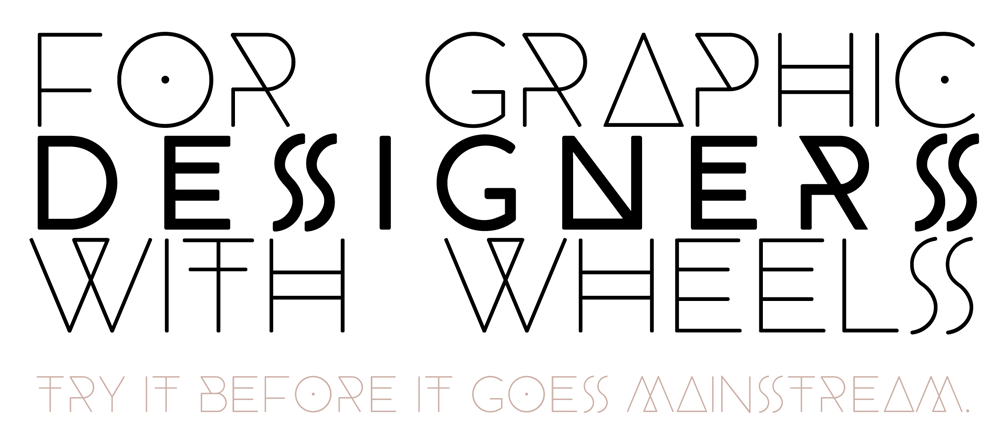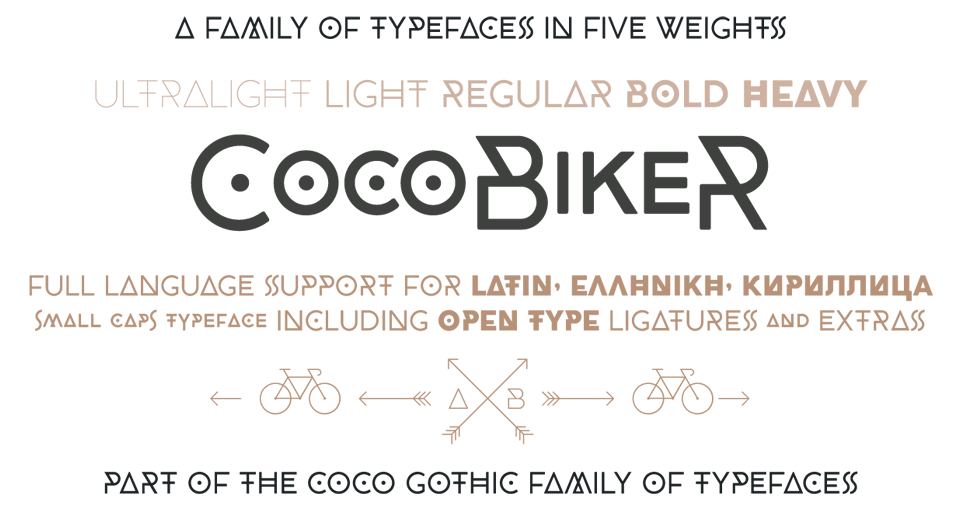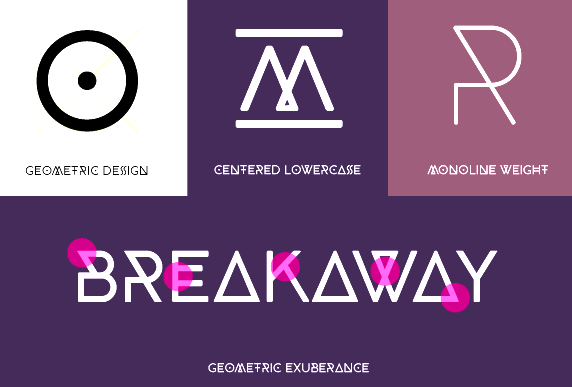
The best free typefaces of 2015: Luc's selection
This is my own selection of the best free typefaces published in 2015, grouped by category.
Text typefaces:
• Clara (Séamas Ó Brógáin). This typeface family also covers Greek and Cyrillic.
• Inknut Antiqua (Claus Eggers-Sørensen). An angular text typeface that will survive earthquakes and tsunamis.
• Caslon OS (Alfredo Marco Pradil). A revival typeface for those who can't afford Adobe Caslon.
Sans typefaces:
Type systems:
Art deco typefaces:
Hipster typefaces:
Script typefaces:
Sketched, Layered or Poster typefaces:
• Pelmeshka (Cyril Mikhailov). A handcrafted fat didone for Latin and Cyrillic.
• HB Sketch (Mehmet Abaci, Studio Typo). A gorgeous sketched didone.
• Flowers Power Nega (imagex). A textured ornamental caps typeface by the prolific free font designer simply known as imagex. Shall we ever know his or her identity?
• Monstre Display (Lev Berry). A stackable system based on a model from 1882.
• Ahoj. A free all caps layered typeface family made in 2015 by the crew at Type Together, namely, Veronika Burian, Jose Scaglione, Sonja Stange, Elena Veguillas and Irene Vlachou. Ahoj is a bold display sans serif inspired by images of old signs and lettering found in different cities. The typeface family was produced in a four-day workshop in Prague. Voluntary contributions will be used to help the victims of the 2015 quake in Nepal.
• Plump (Steven Whitfield).
• ALT Smaq (Andreas Leonidou). Eight beveled styles for Latin and Greek. Download link.
• Chubby (Anders Kristoffersen). Download link.
Blackletter typefaces:
Dingbats and ornaments:
• Asap Symbol (Tania Quindos, Marcela Romero, Elena Gonzalez Miranda and Pablo Cosgaya at Omnibus Type).
Garalde typefaces:
• Cormorant (Christian Thalmann, Open Font Library). See also CTAN.
Display typefaces:
• rBH (Morten Rostgaard Olsen, Ole Søndergaard and Henrik Birkvig). A typeface family custom designed for the identity of the city of Copenhagen.
• Infini (Sandrine Nugue). A lapidary typeface family, winner of a contest for CNAP in France in 2014.
• Blackentina (Sergiy Tkachenko).
• Red Velvetica Shadows Bold (Jeff Bensch).
• Zacatecas (Fernando Haro). For that special condensed title.
• Kayfabe (Steven Waring). Download site.
• Kanji PA (Pedro Azedo). A bilined logo font inspired by kanji.
• Pxl Supercondensed (Alberto Malossi). In Wim Crouwel's piano key style.
• Slot (by Adrien Coquet and Hugo Dath).
• George A Rebours and Georges Labeur Corps 8 (Ivan Louette). An impeccable reproduction of Georges Auriol's first typeface, a precursor of the iconic art nouveau typeface Auriol.
Slab serif typefaces:
• Ansley Display (Kady Jesko).
• Bariol Serif (Atipo). This wonderful rounded typeface family accompanies the sans family Bariol (2012) and is specifically designed for screen, mobile applications and the web. Two weights are tweetware, and the others are donationware.
Copperplate:
Wood type revivals:
Letterpress emulation:
• Bernier (Ryan Pyae).
• Cocogoose Letterpress (Cosimo Lorenzo Pancini at Zetafonts). Great design---too bad the free version is crippled (no numerals).
Didone typefaces:
• Libre Bodoni (Pablo Impallari and Rodrigo Fuenzalida). Based on Morris Fuller Benton's Bodoni types, this 4-style family was developed in 2014 and published in 2015 by Open Font Library.
• Chonburi (Cadson Demak). Covers Latin and Thai.
• Goral (Ofir Shavit). A 12-style Peignotian (sans) and didone (serif) typeface family, which was made with his own software, FontArk.
• Burlesque (Fernando Paravela). In the fat face style, this typeface has great carved out design details.
Fashion mag typefaces:
Stencil typefaces:
Multilingual typefaces:
• Catamaran (Pria Ravichandran, Google Fonts). This family covers Latin and Tamil.
• Yantramanav (Erin McLaughlin, Google Web Fonts) is a Devanagari typeface family designed to accompany Christian Robertson's Roboto.
• Shumi (Ivan Shumikhin). A macho octagonal typeface for Latin and Cyrillic.
• Modak (Ek Type; Google Fonts). The chubbiest bubblegumiest Devanagari typeface in existence today. Modak Devanagari was designed by Sarang Kulkarni and Maithili Shingre and Modak Latin by Noopur Datye with support from Girish Dalvi and Pradnya Naik.
Wonderful, adorable, refreshing typefaces:
• Iosevka (Belleve Invis). This monospaced programming font for Latin, Greek and Cyrillic is generated by code using the parametric paradigm. A tour de force.